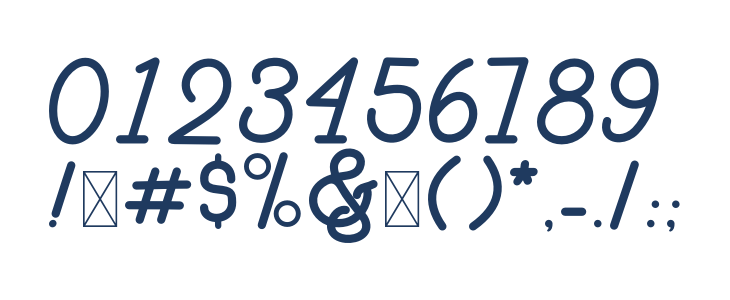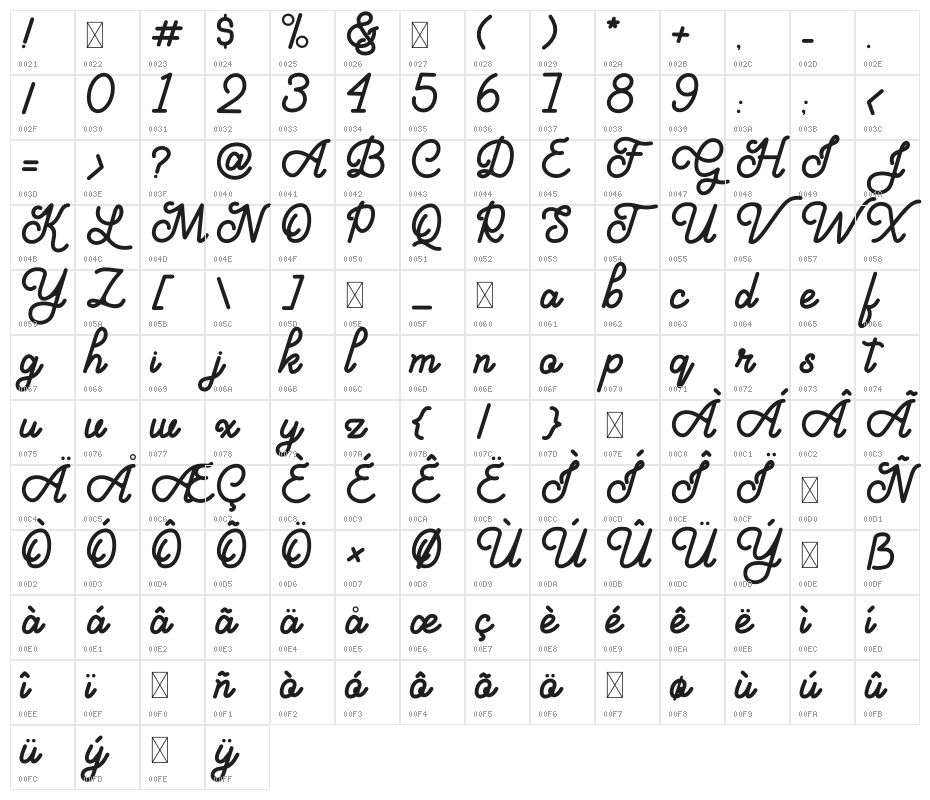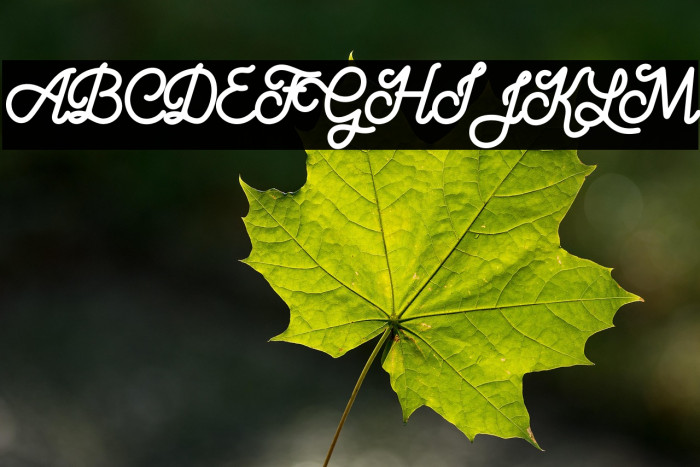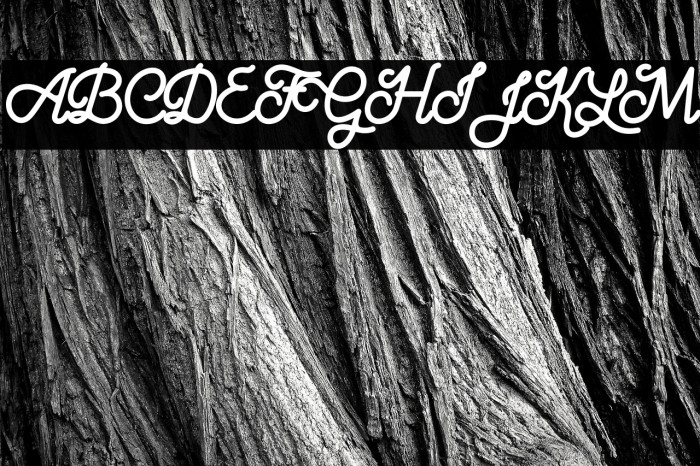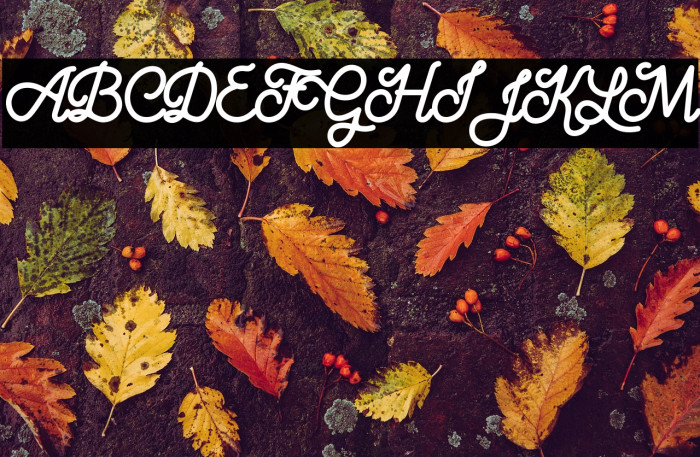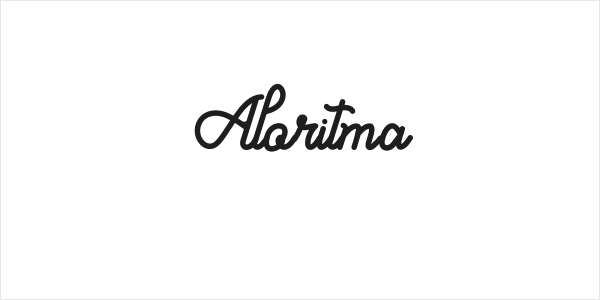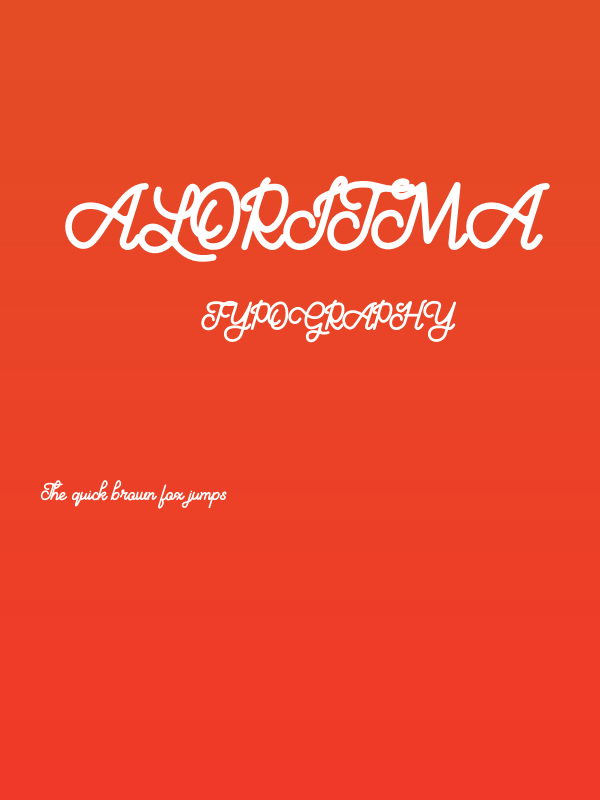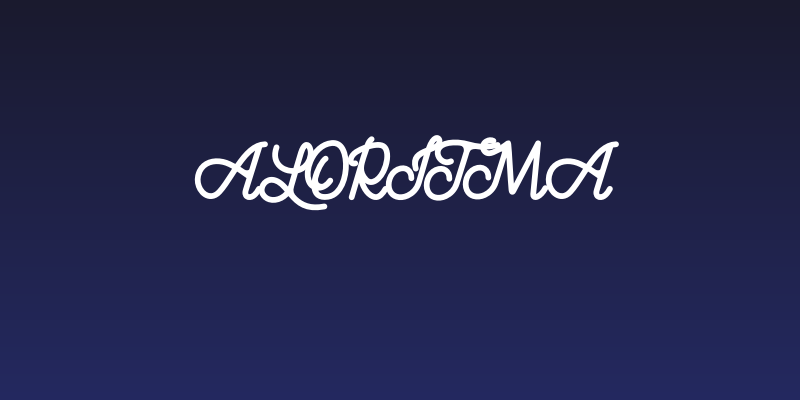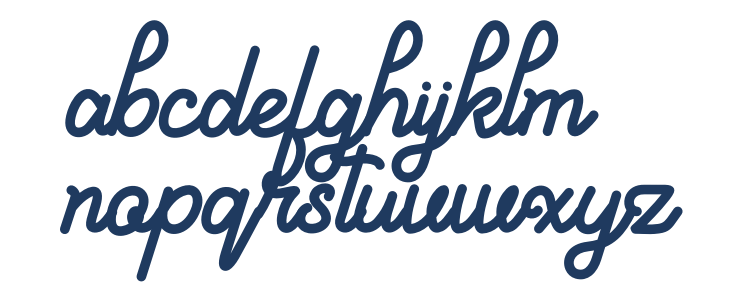
Aloritma Font
Aloritma Description
This font features a flowing, cursive style with elegant loops and swirls, giving it a sophisticated and artistic appearance. The uppercase letters are intricately designed with consistent curves, while the lowercase letters maintain a smooth, connected script that enhances readability. The numerals are distinct and maintain the cursive theme, adding a touch of elegance to numerical expressions. Special characters are thoughtfully integrated, ensuring they complement the overall aesthetic. This font is ideal for projects that require a touch of elegance and creativity, such as invitations, branding, and artistic designs.
| Overall Style | Elegant, Artistic |
| Use Case | Headlines, Invitations, Artistic designs |
| Proposed Projects | Ideal for wedding invitations, branding, greeting cards, and artistic designs. |